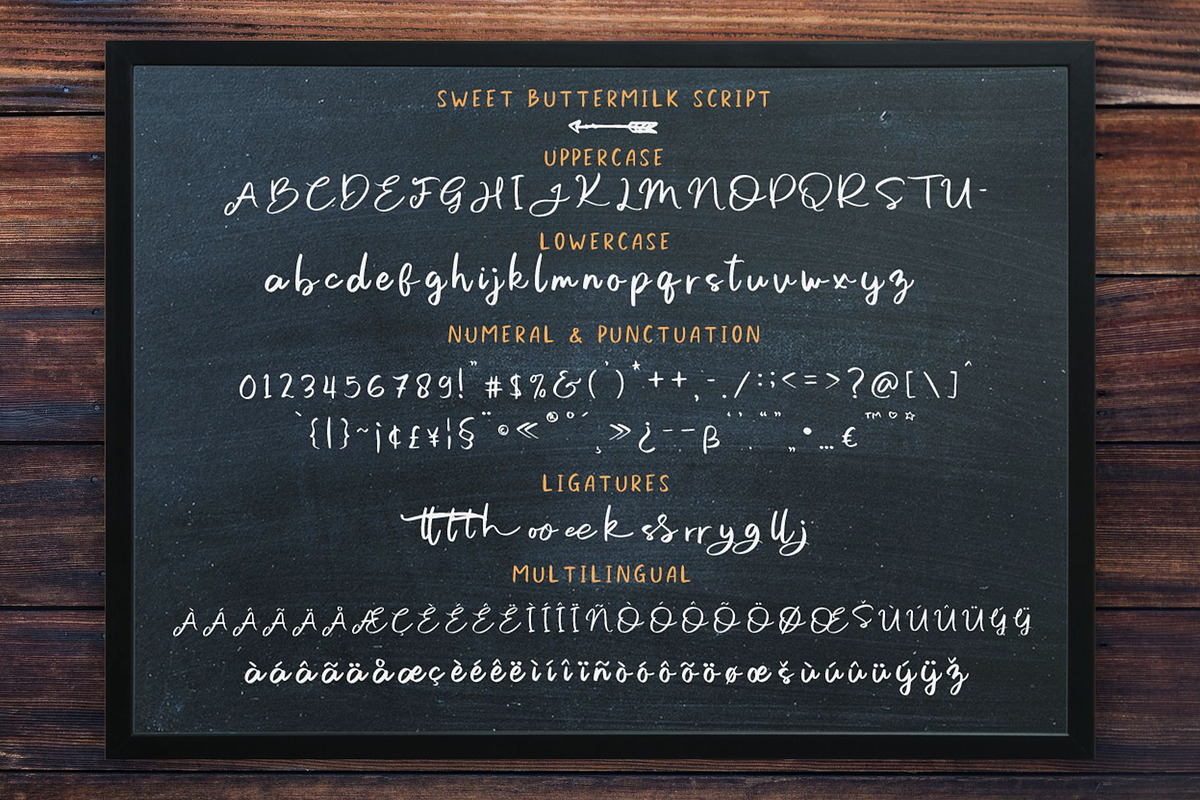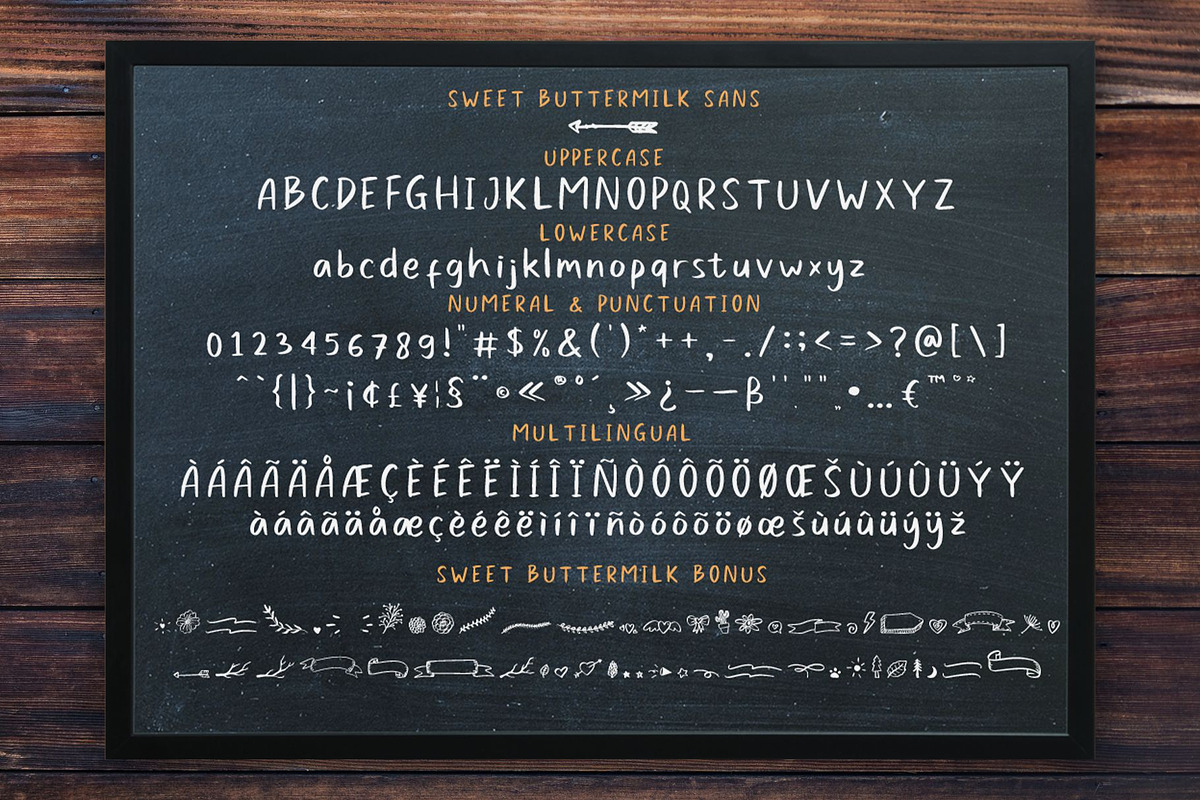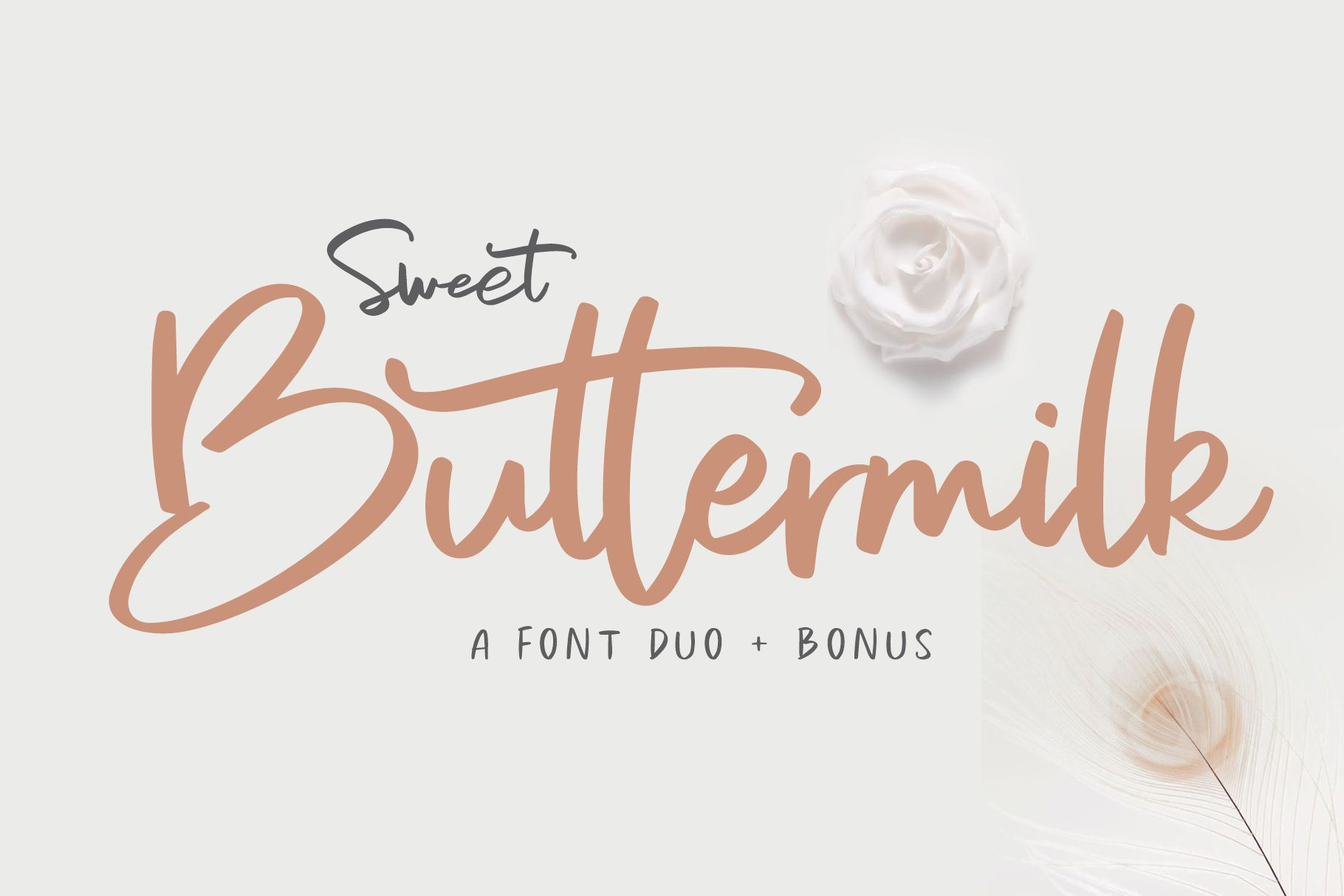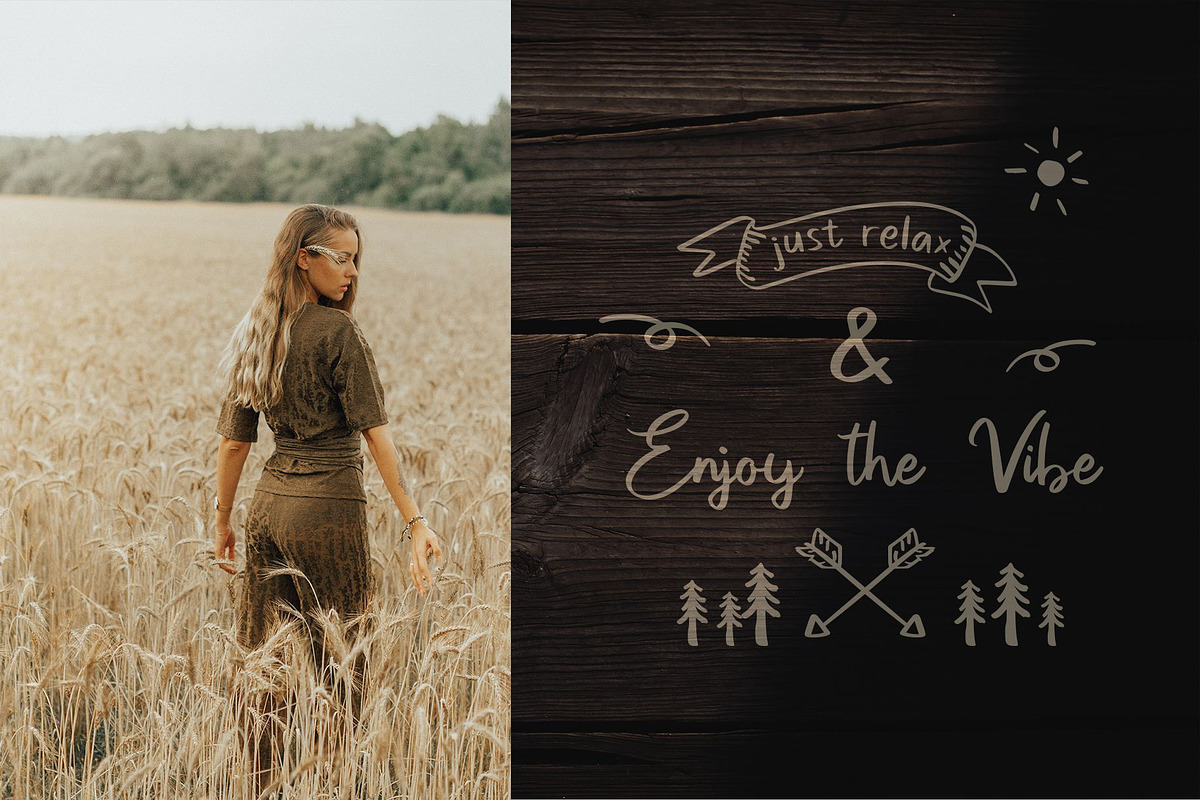
Sweet Buttermilk - Font Duo + Bonus
Sweet Buttermilk - Font Duo + Bonus is an handwritten script font based on the expression of real handwriting, lets you transform type into an exciting and beautiful piece of work. The irregular, hand-lettered look adds a real human touch to things and comes along with a lot of loving details. Combine all font-styles the way you want, add some ornamental swashes or banners and even a single word becomes magnificent.
Sweet Buttermilk - Font Duo + Bonus gives you possibility to build your text almost like handwriting with all the charming imperfections and variations that a real handwriting has. Bravely will work perfectly for fashion, e-commerce brands, trend blogs, wedding boutiques or any business that wants to appear upscale and chic.
- Upper Case & Lowercase
- Some Stylistic Alternates
- Standard Ligatures (ee oo rr ss tt)
- Numerals & Punctuations (OpenType Standard) (Aรรรรรร CรDรEรรรรIรรรรNรOรรรรรรUรรรรWYรลธแปฒลธรลรร)